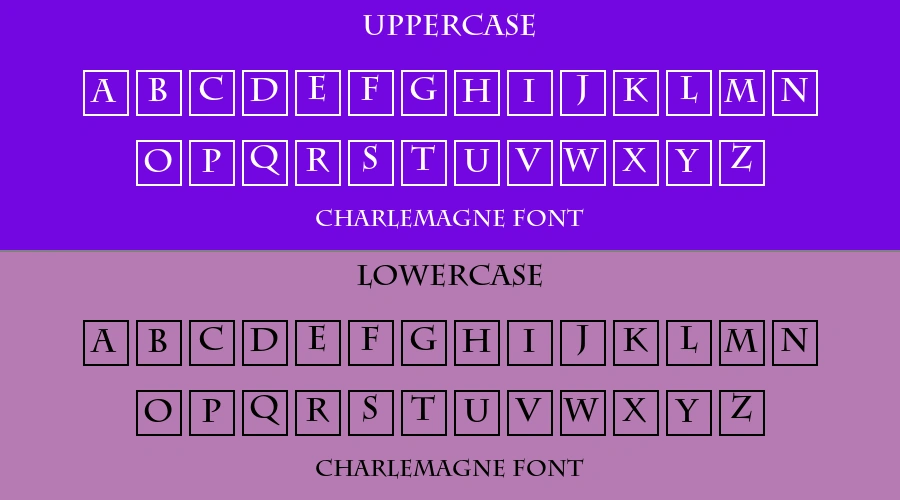
About Charlemagne Font
Charlemagne Font embodies typographic excellence through its masterful combination of balanced tension and color consistency. Created for logo design, this typeface delivers exceptional clarity and technical merit across all applications. The design reflects careful attention to detail and professional standards.
Advanced capabilities include distinctive calligraphic influence and versatile arrow sets, giving designers creative control. When used in exhibition materials, Charlemagne Font exhibits remarkable reproduction fidelity. The harmonious balance between apex design and professional recognition sets this typeface apart.